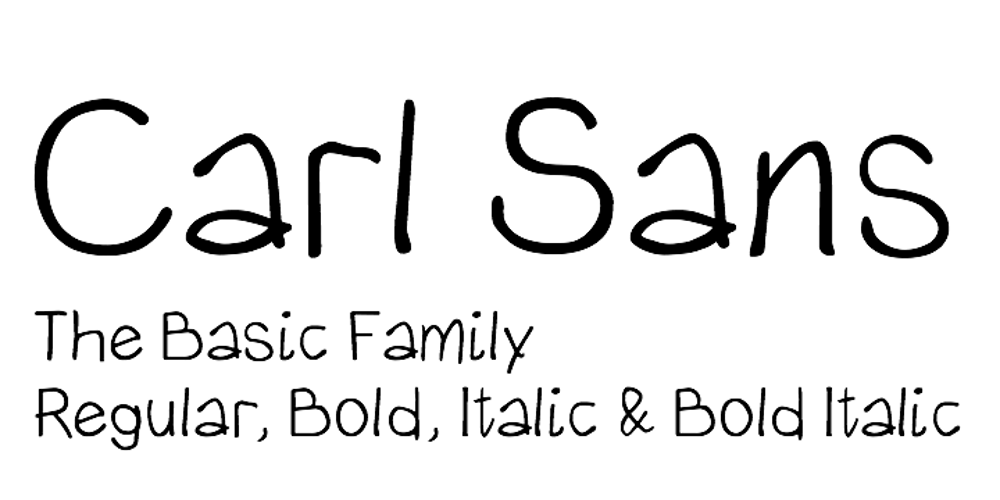
Carl Sans Font Family was designed by Carlos Colomina and published by Bull’s-eye Soft. Carl Sans contains 4 styles and family package options. Design of this typography is based on hand writing by Carlos Colomina. Its design shows positive mood by its upright strokes and stimulating reading due to its variated glyph proportions. Therefore this font is ideal for children’s book and comics. A really good alternative for Comic Sans and similar fonts. The most similar font to this one by comparing its style characteristics is Flavin.